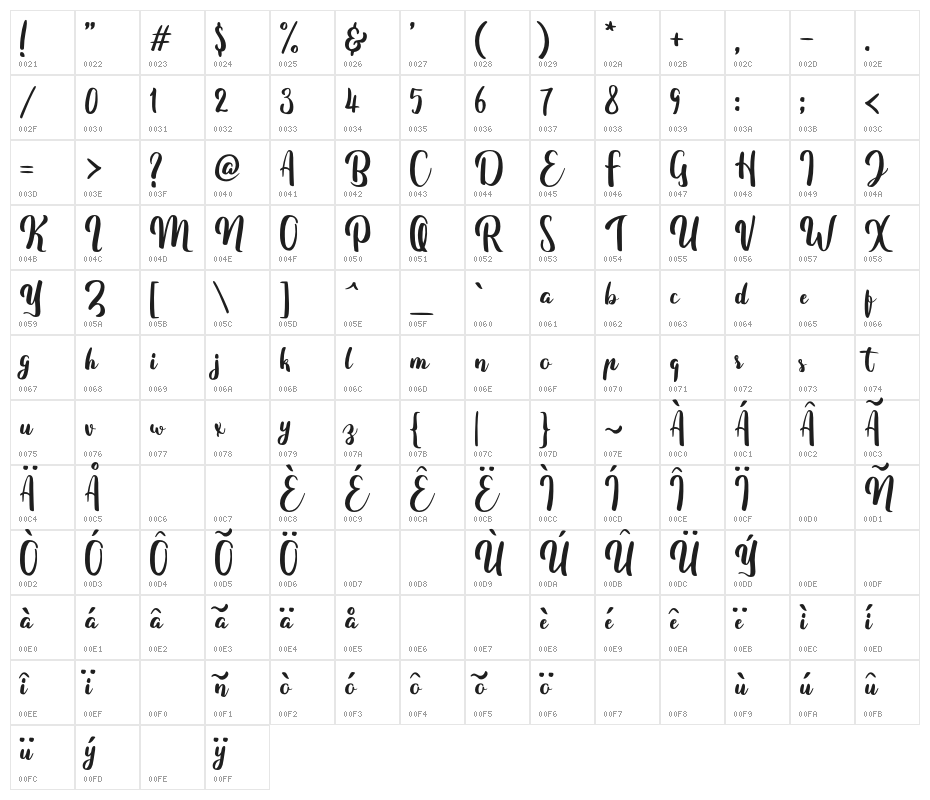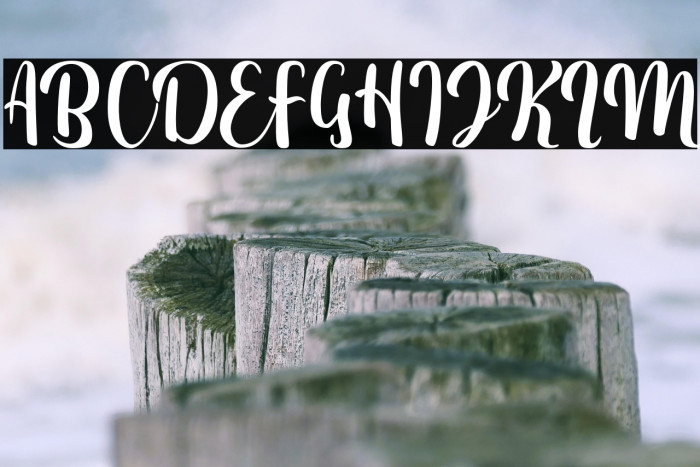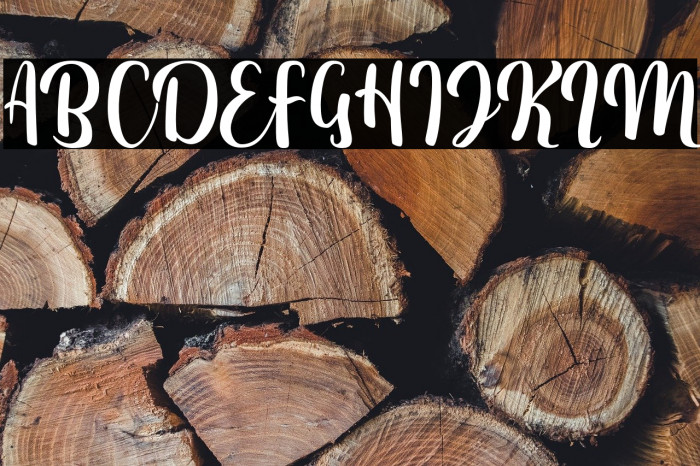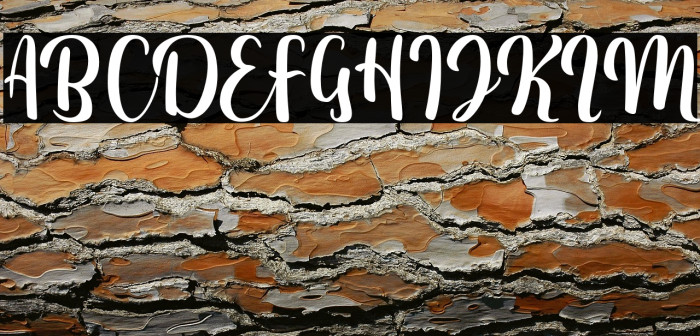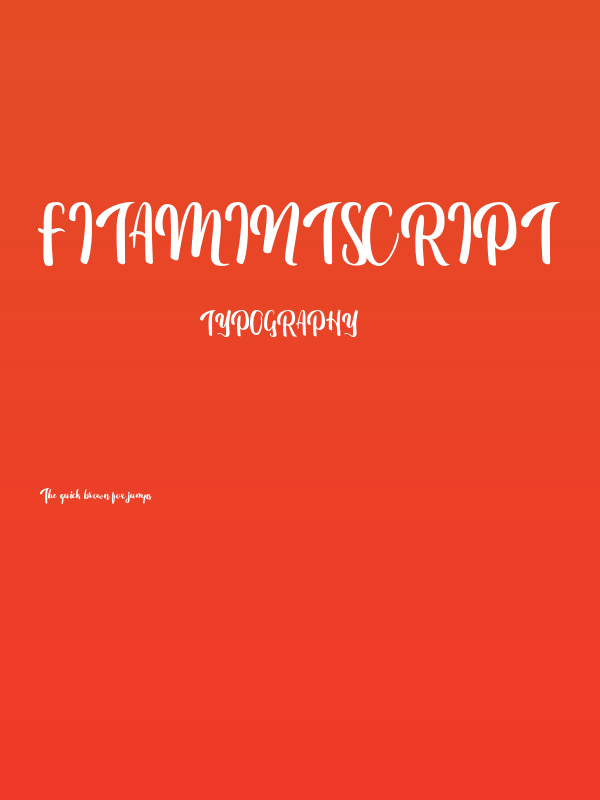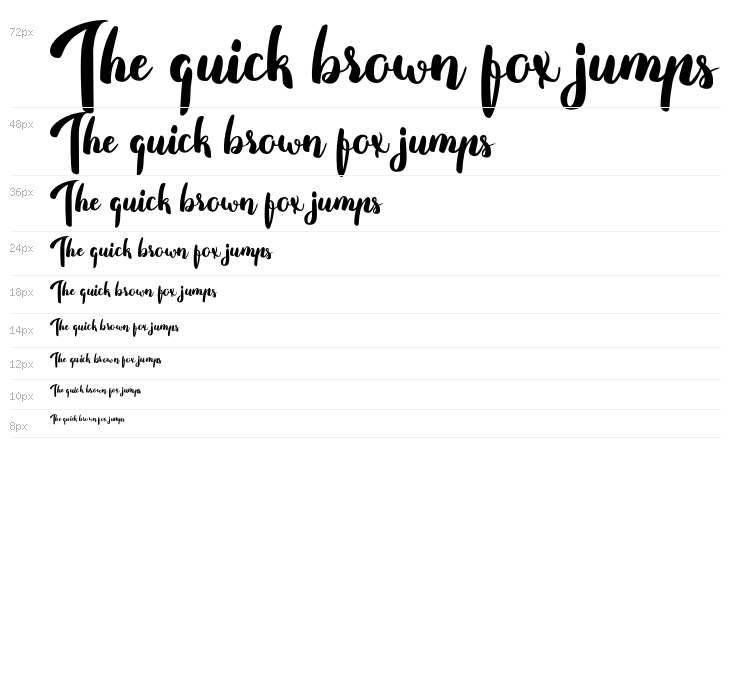
FitamintScript Font
FitamintScript Description
This font exudes a playful and energetic vibe with its bold, flowing script style. The characters are crafted with a smooth, continuous stroke that mimics the fluidity of handwriting. Each letter is distinct, yet they connect seamlessly, creating a harmonious and cohesive appearance. The uppercase letters are tall and elegant, while the lowercase letters maintain a charming, rounded form. The numerals and special characters are designed to match the overall aesthetic, ensuring consistency throughout. This font is perfect for projects that require a personal touch, such as invitations, greeting cards, or branding materials.
Proposed ProjectsIdeal for invitations, greeting cards, branding, and creative projects that require a personal touch.